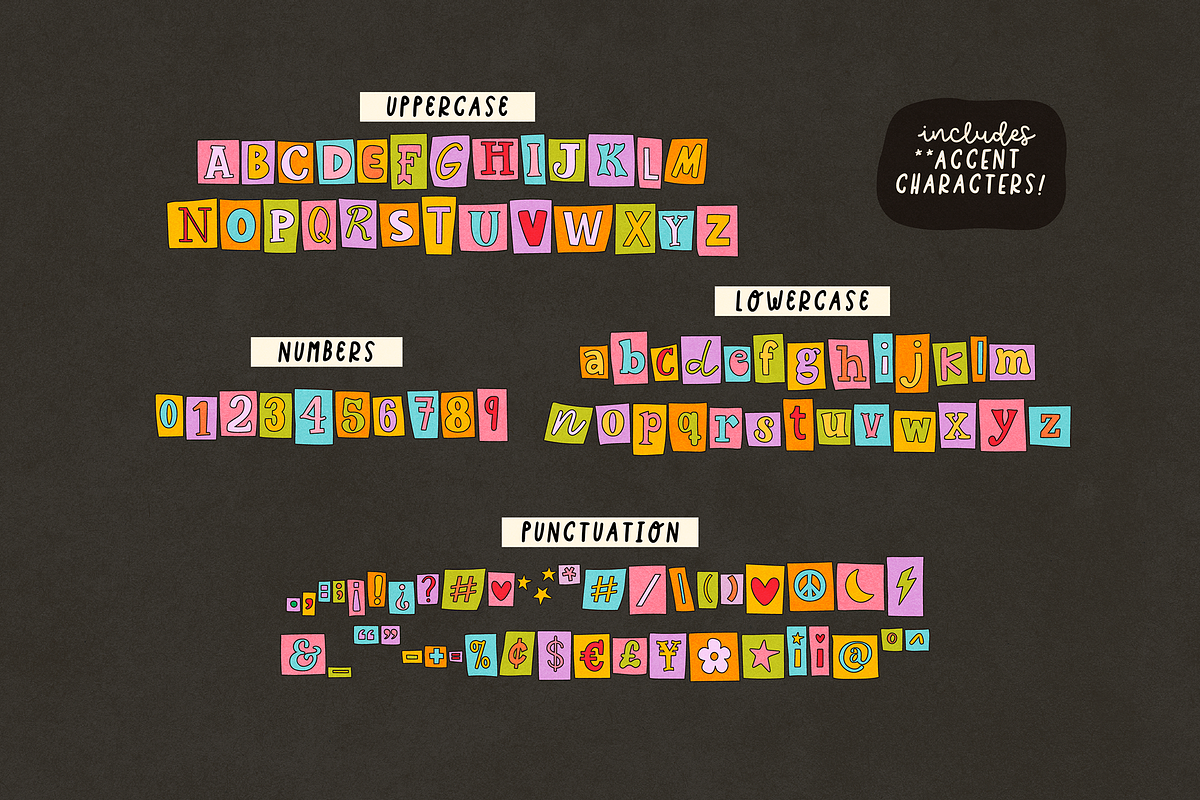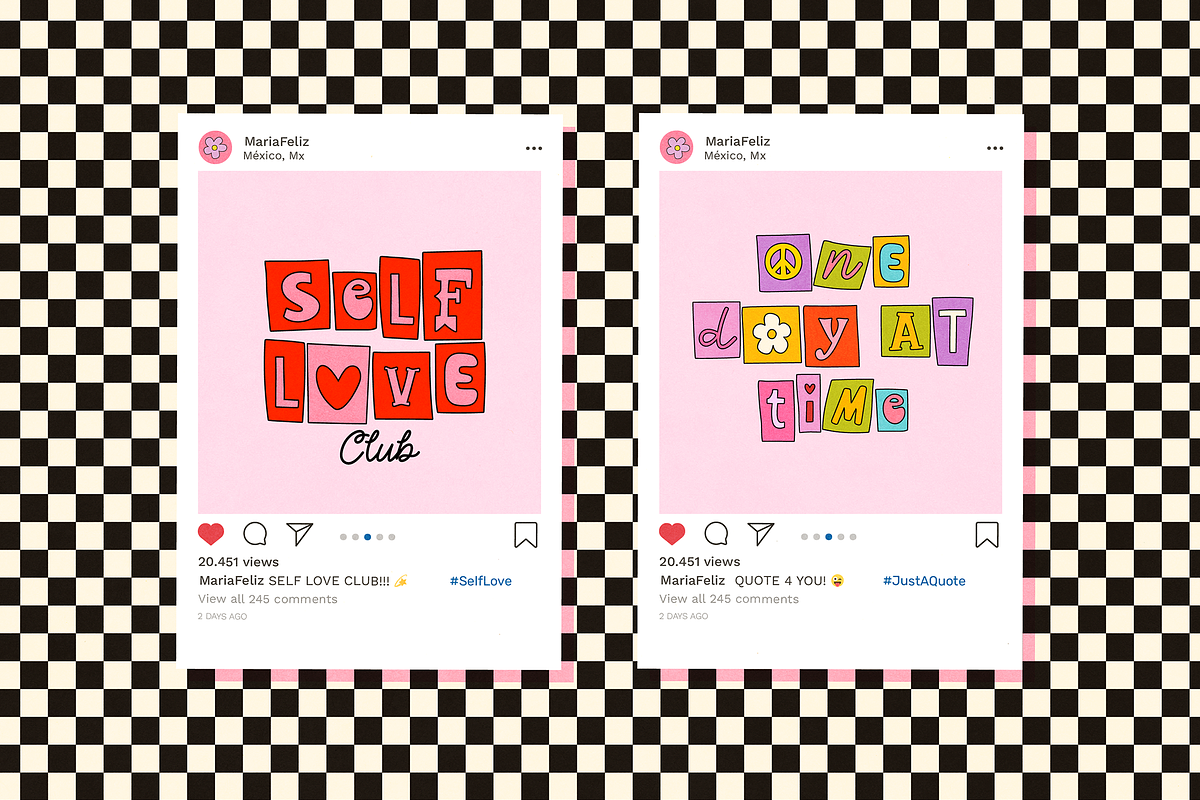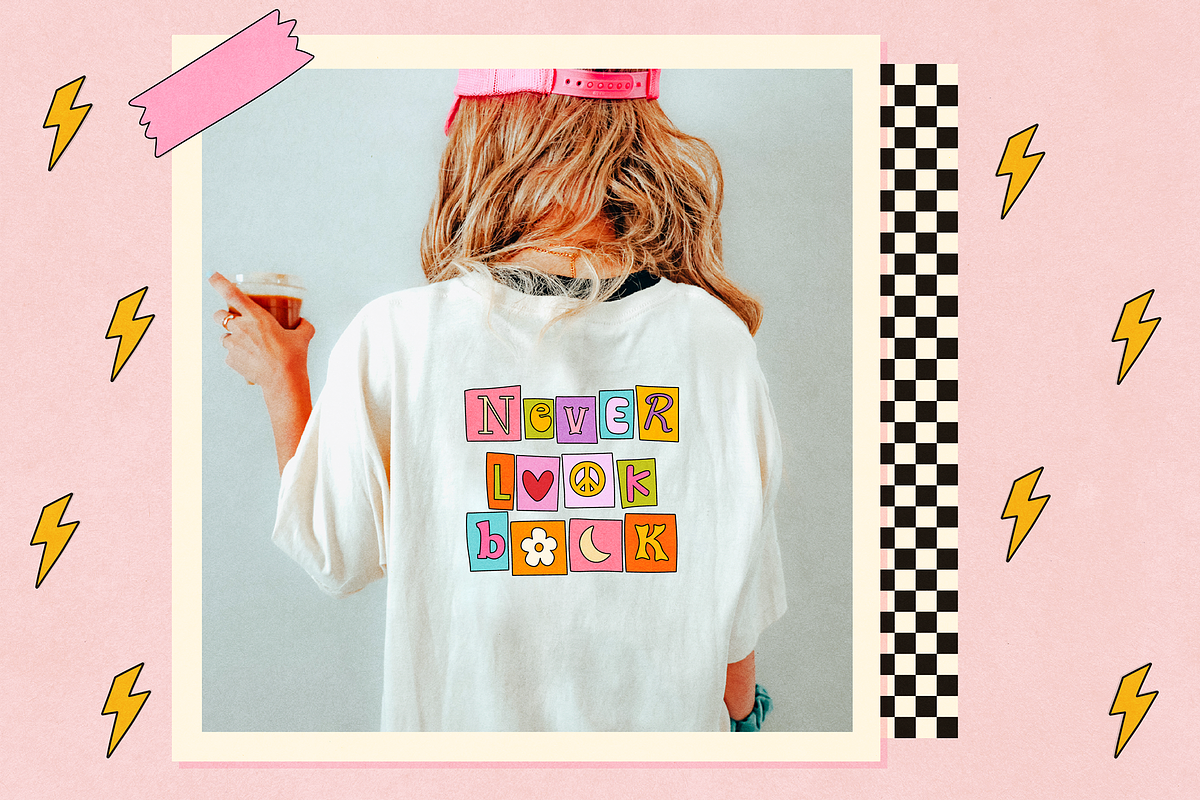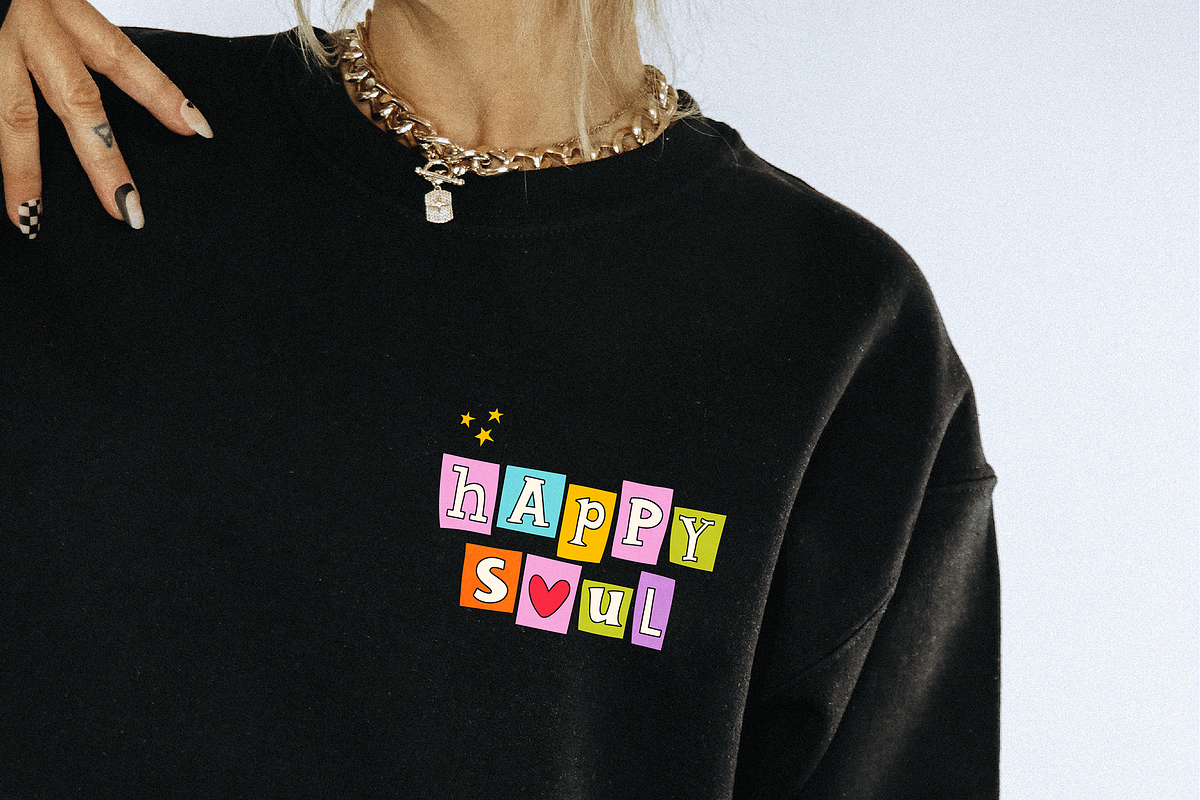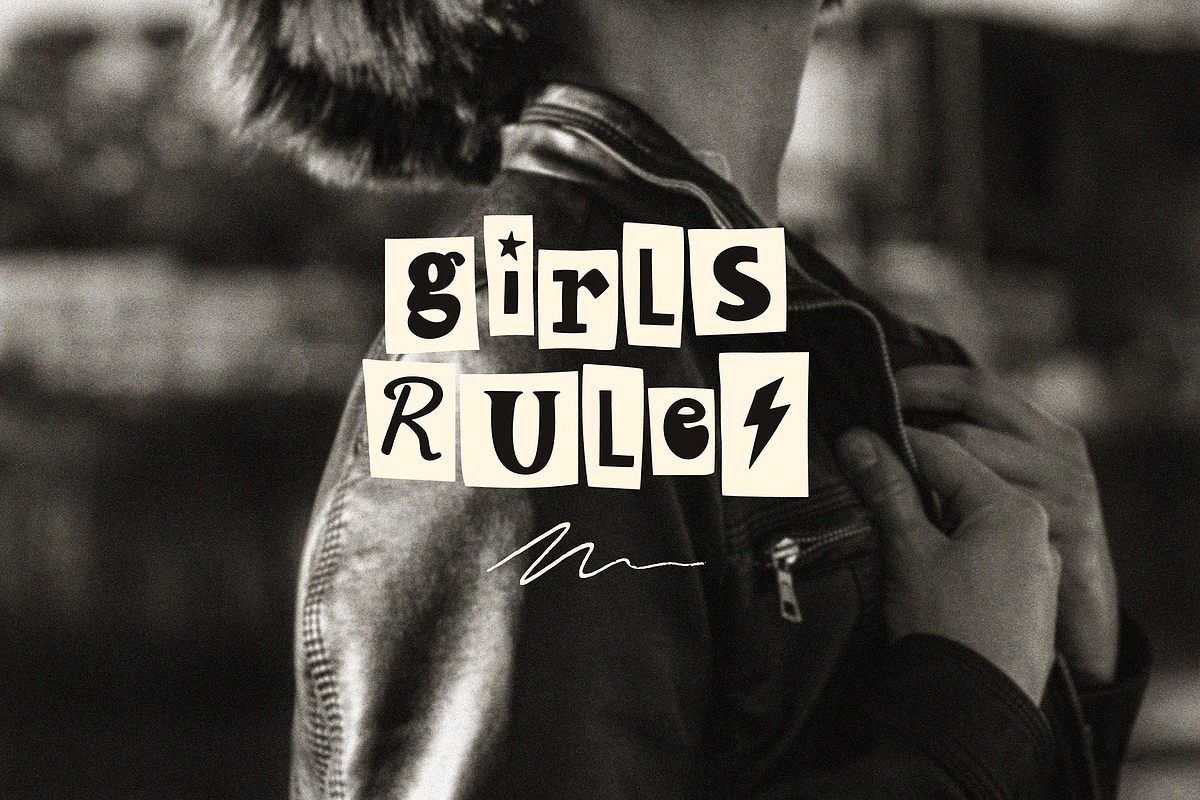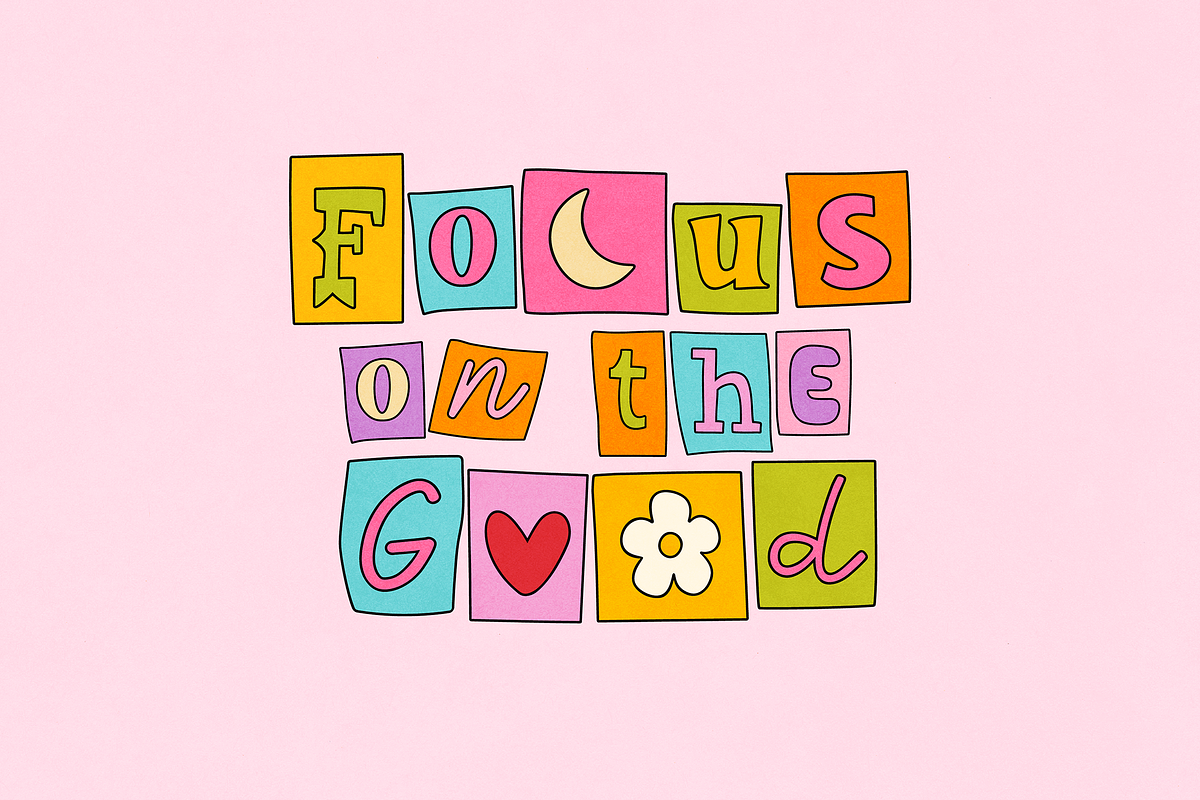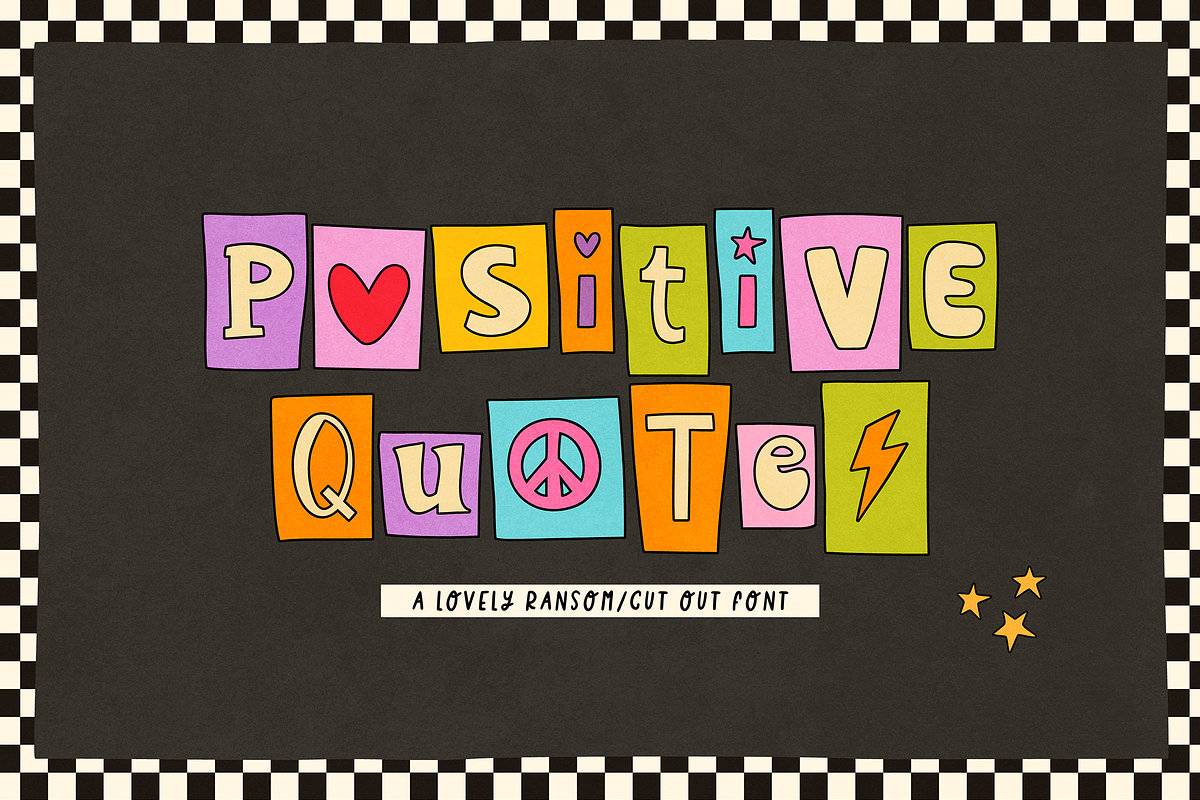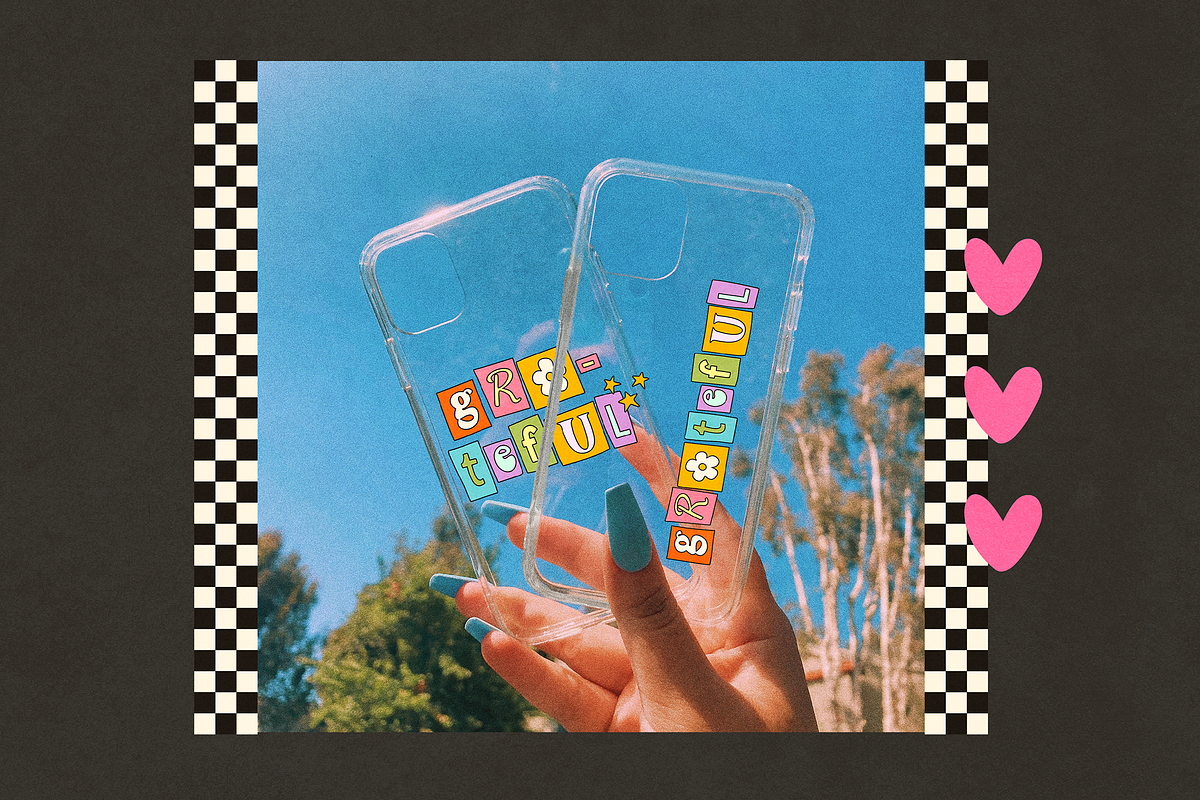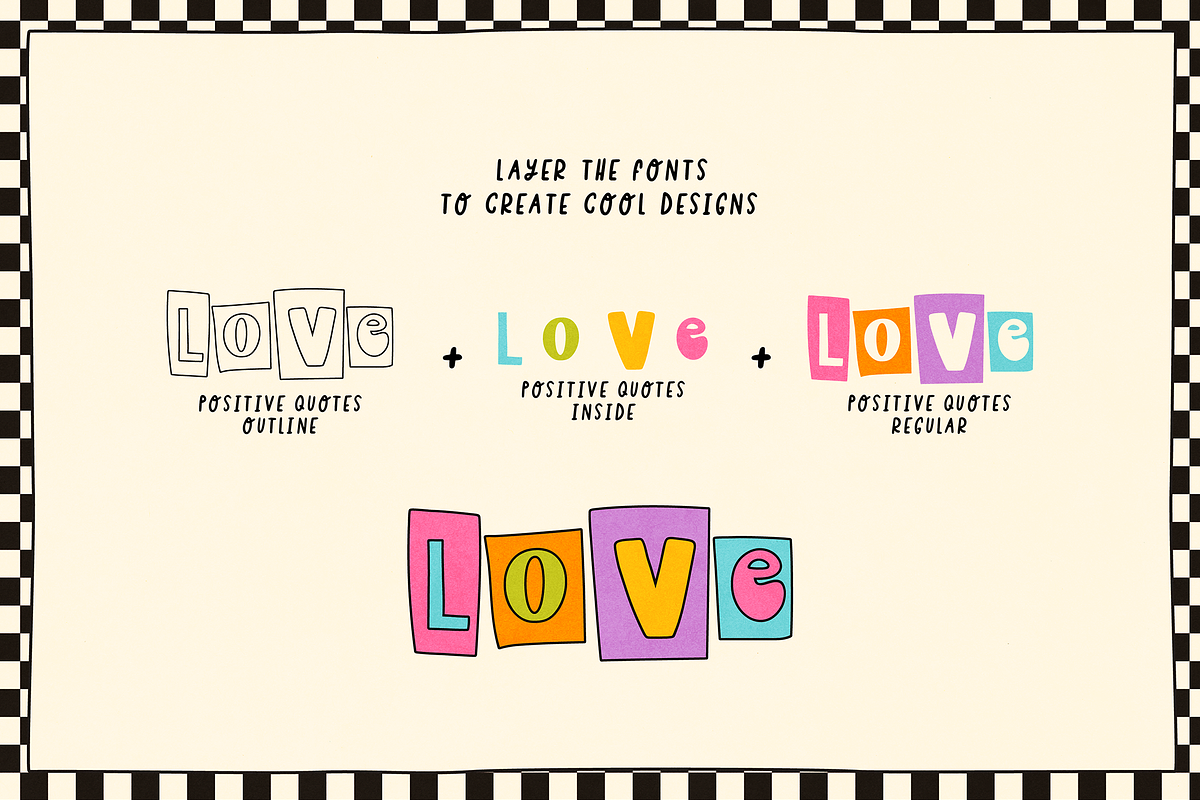
POSITIVE QUOTES
POSITIVE QUOTES is a cute Ransom cutout font. Be creative and create awesome products such as t-shirts, stickers, quotes, etc.
✷ Use the 10 symbols included to make cute compositions.
- Bullet symbol • – Stars
- Period centered symbol · – Small Heart
- Bar symbol | – Lowercase “i” with a heart
- Left Curly Bracket { – Moon
- Right Curly Bracket } – Lightning
- Left square bracket [ – Big Heart
- Right square bracket ] – Peace symbol
- Logical Not ¬ – Lowercase “i” with a star
- Greater – Star
- Less – Flower
Important note: Please consider that if you don't like the thickness of the font (Positive quotes outline font) or it doesn't meet your needs, you can change or add the thickness to your liking directly from the design program you are using (Illustrator, Photoshop, Canva, etc.)